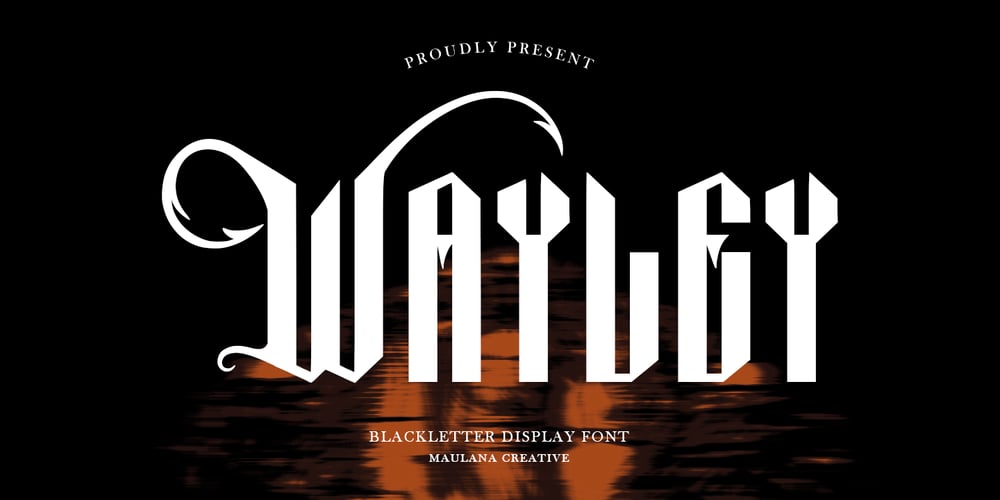
MC Wayley
MC Wayley font
MC Wayley Font Family was designed by Gilang Maulana and published by Maulana Creative. MC Wayley contains 1 styles and family package options. Wayley blackletter display font. Heavy stroke, vintage character with a awesome alternates. To give you an extra creative work. Wayley display font support multilingual language. This font is good for logo design, Social media, Movie Titles, Books Titles, a short text even a long text letter and good for your secondary text font with script or serif. Make a stunning work with Wayley blackletter display font.–UppercaseCheers,Maulana Creative